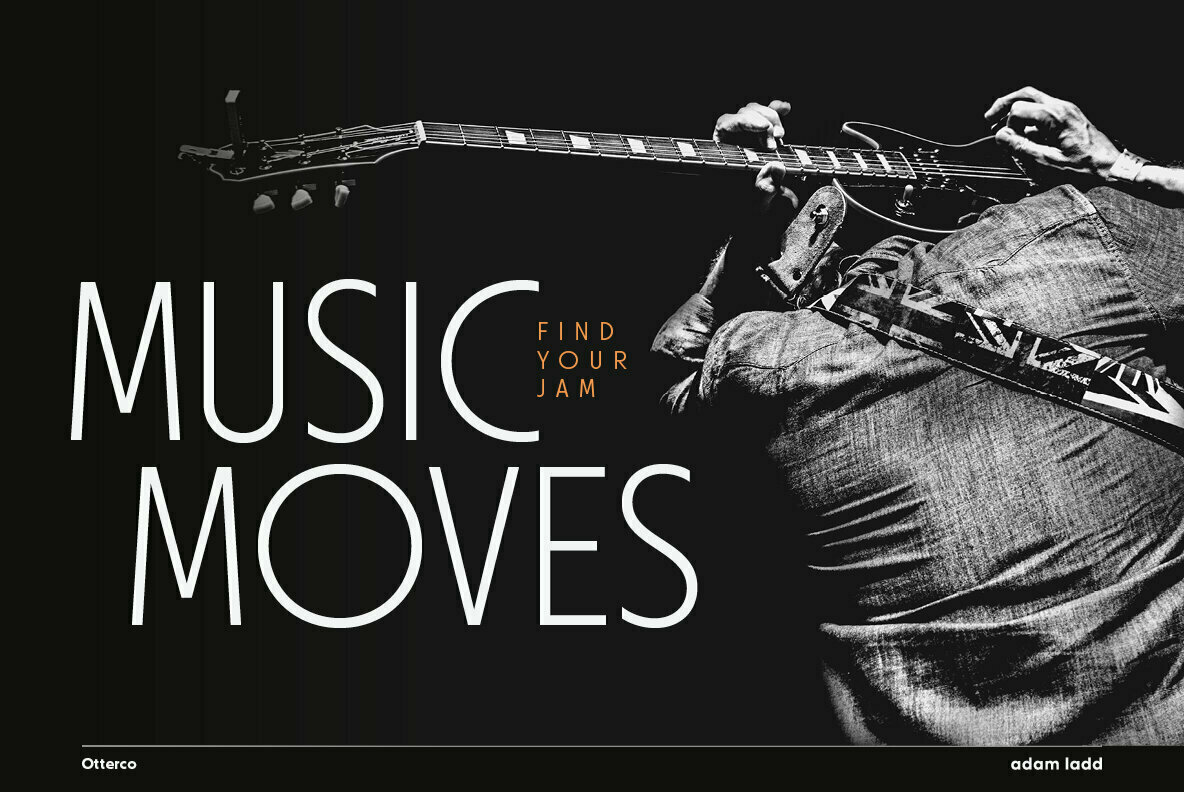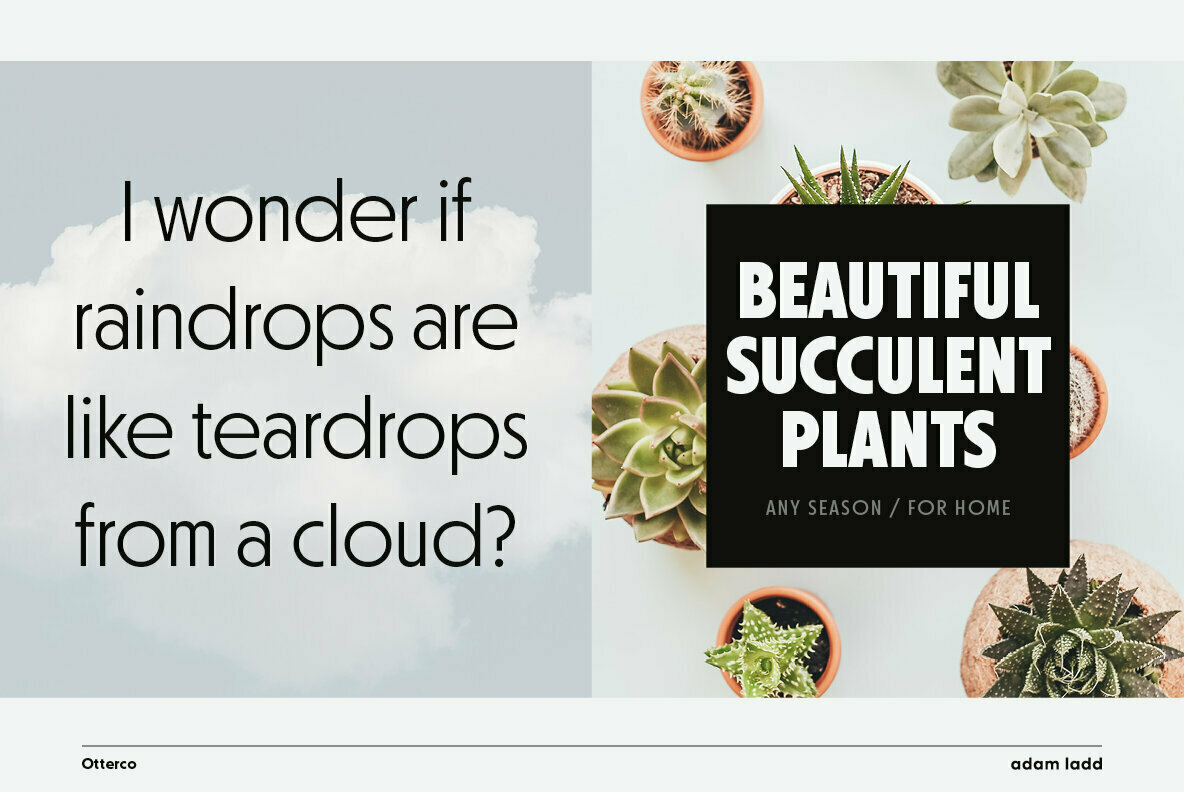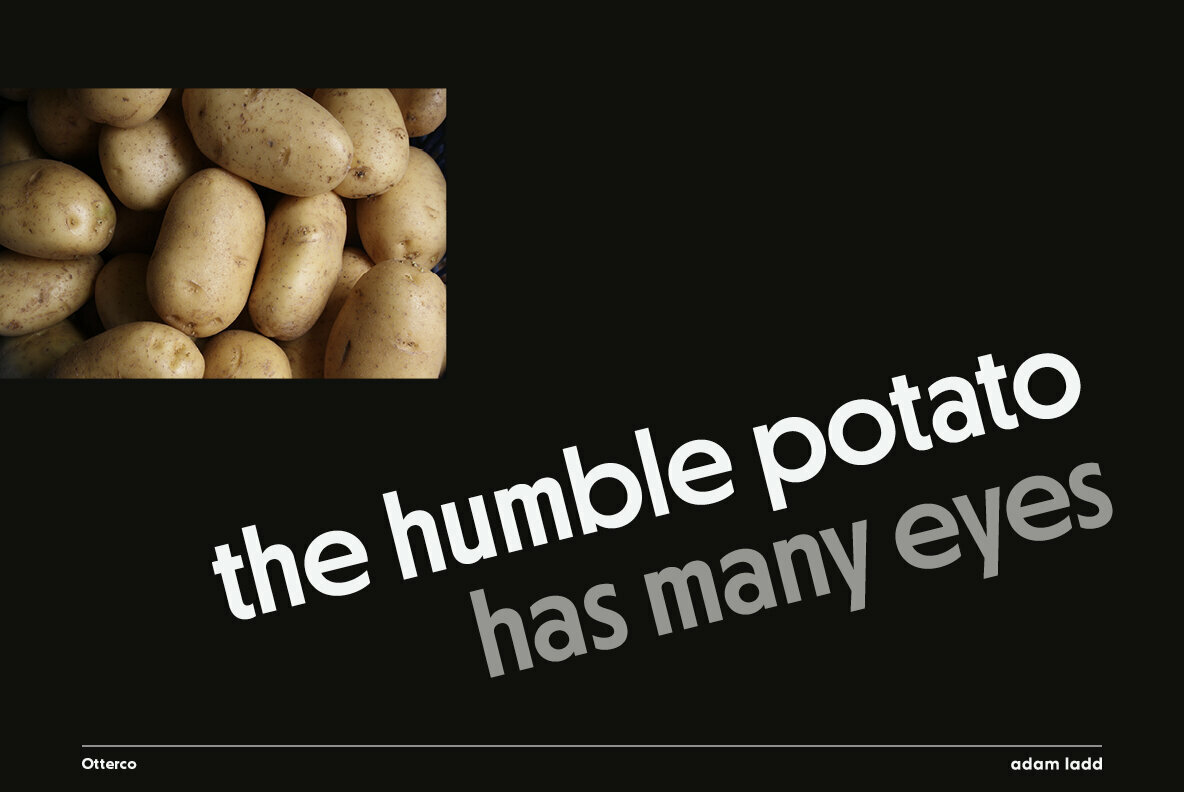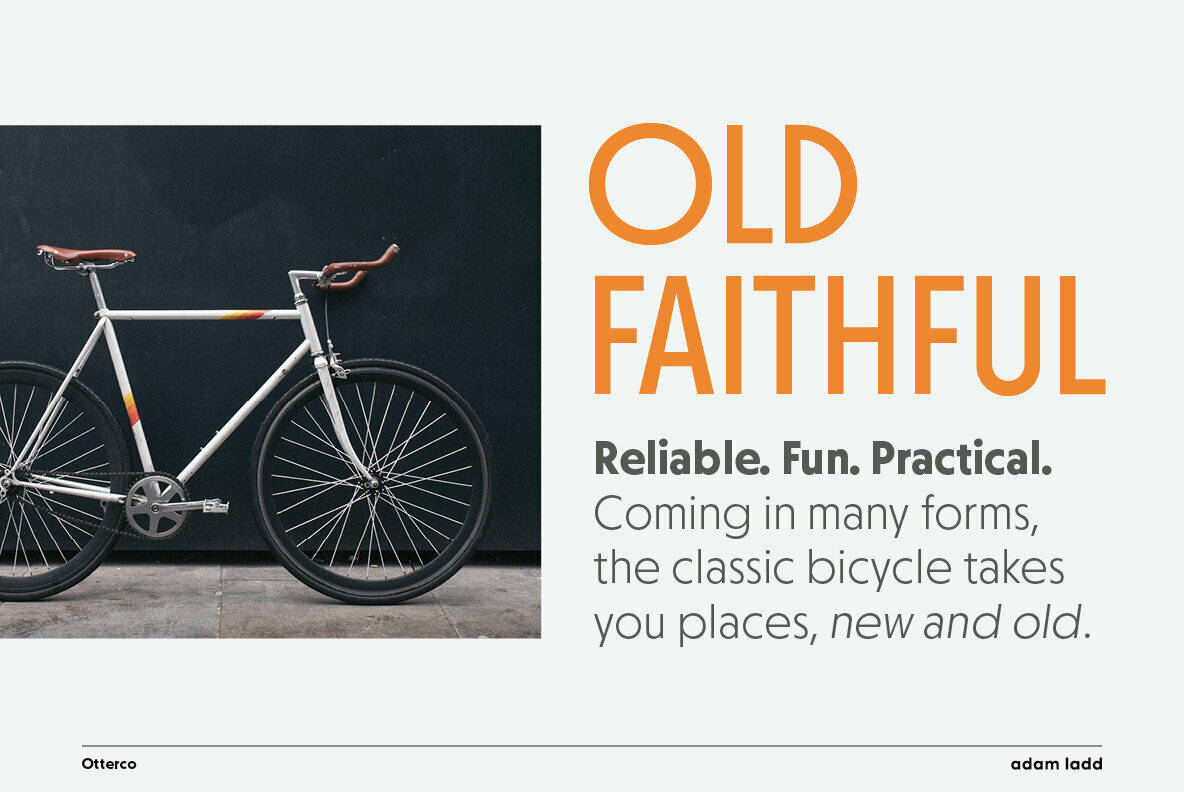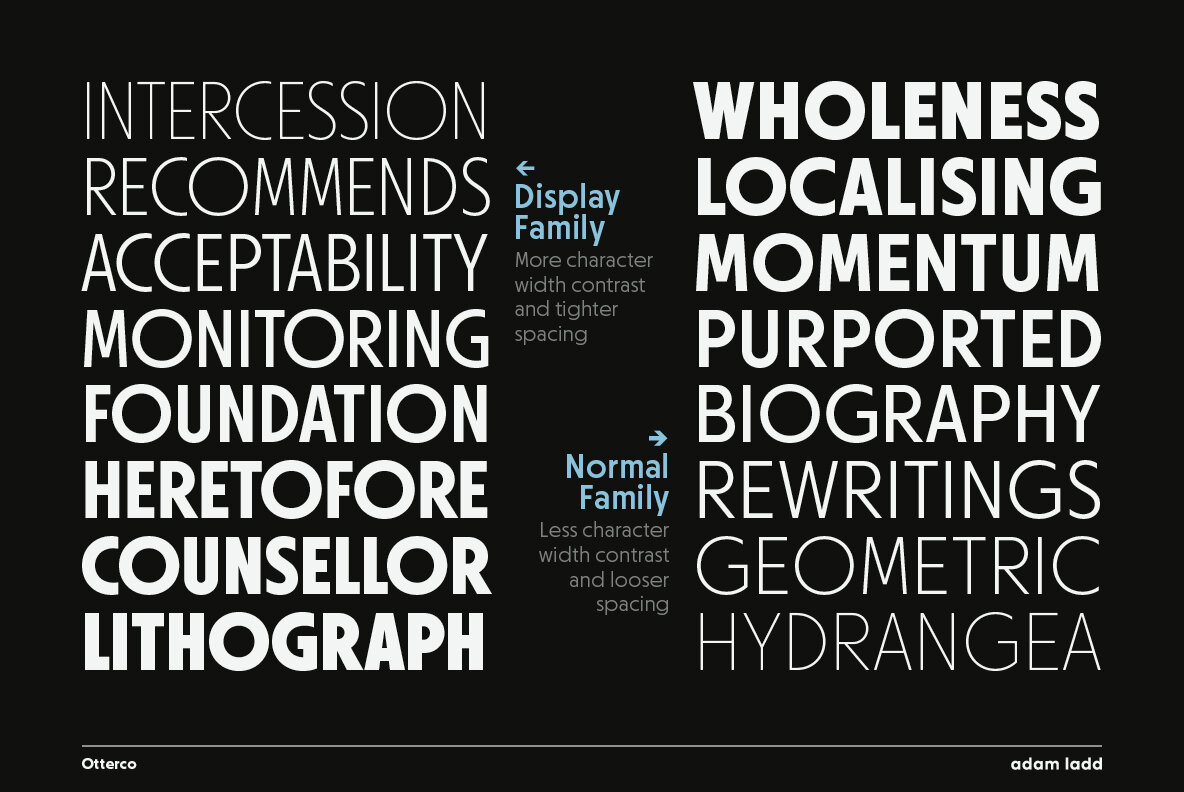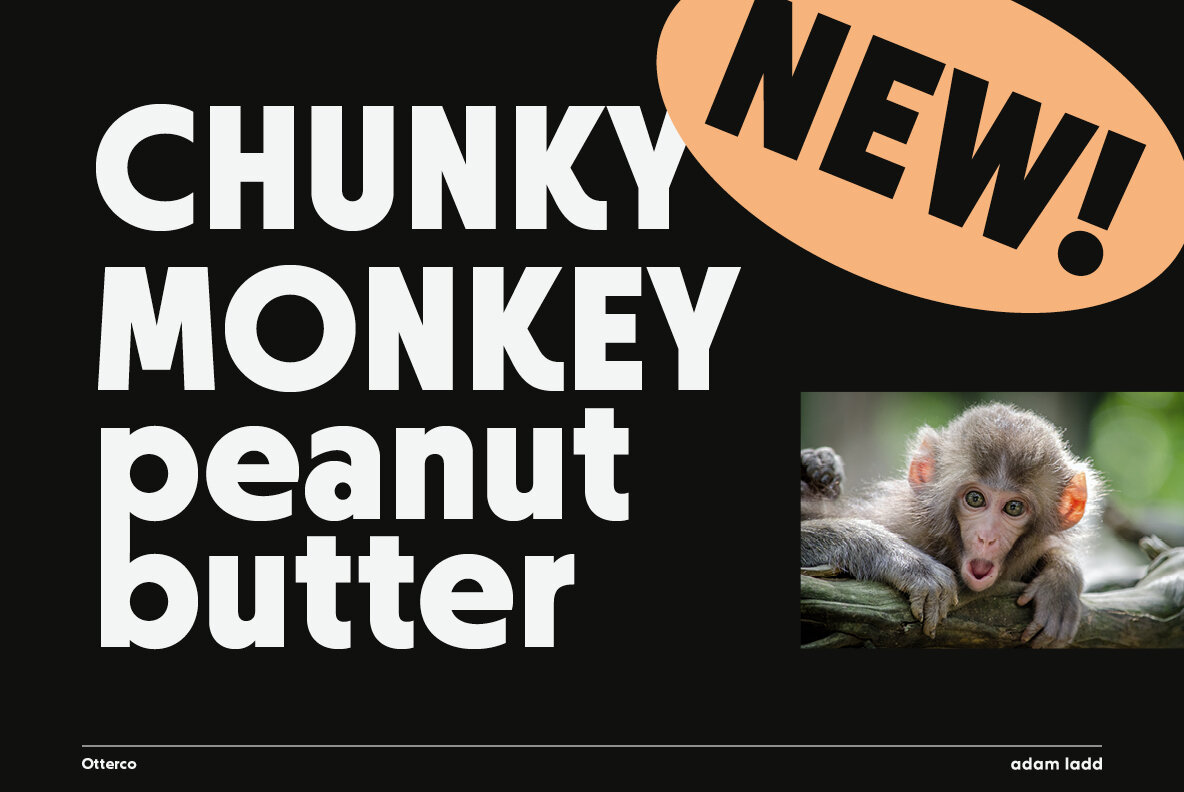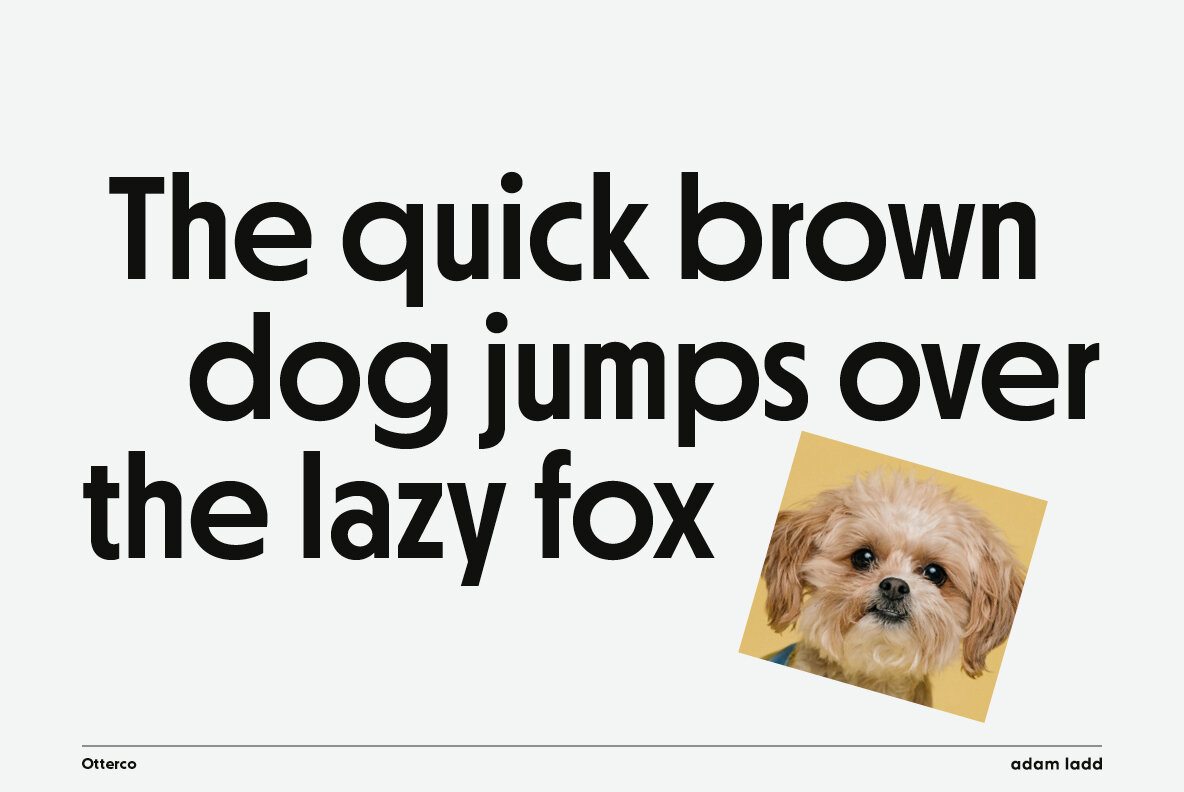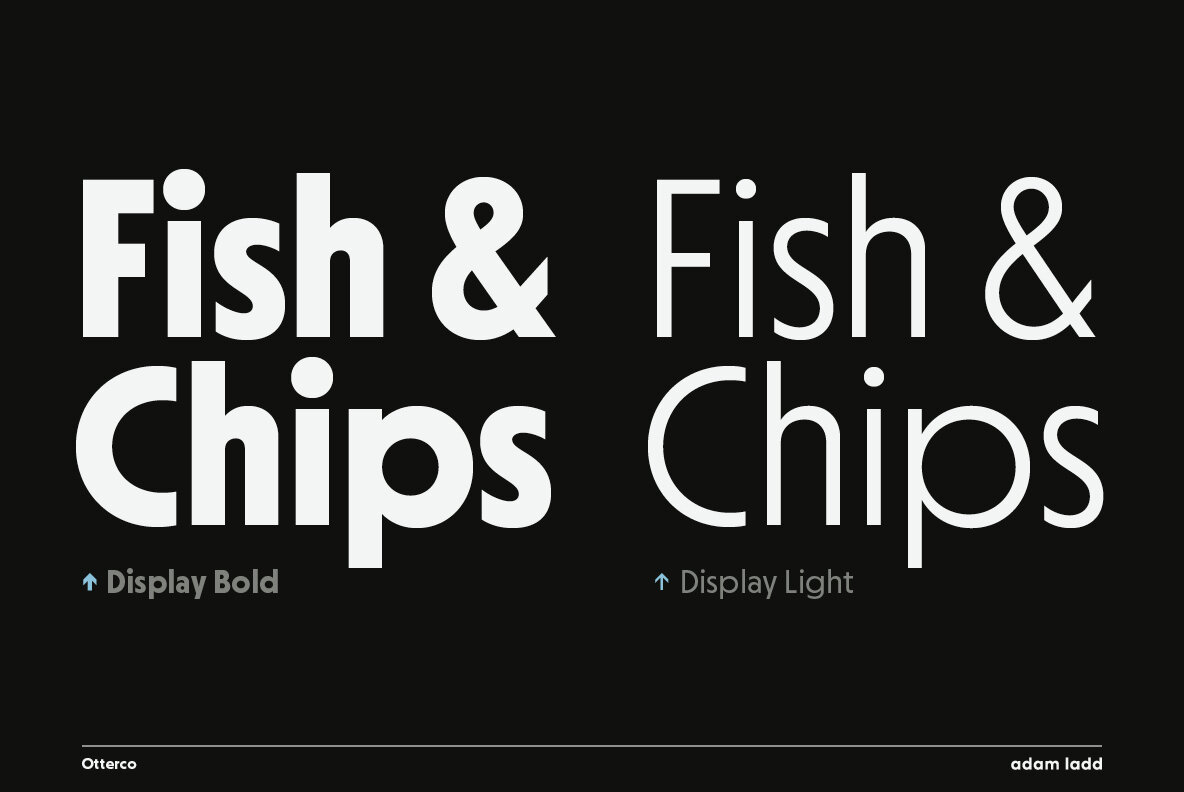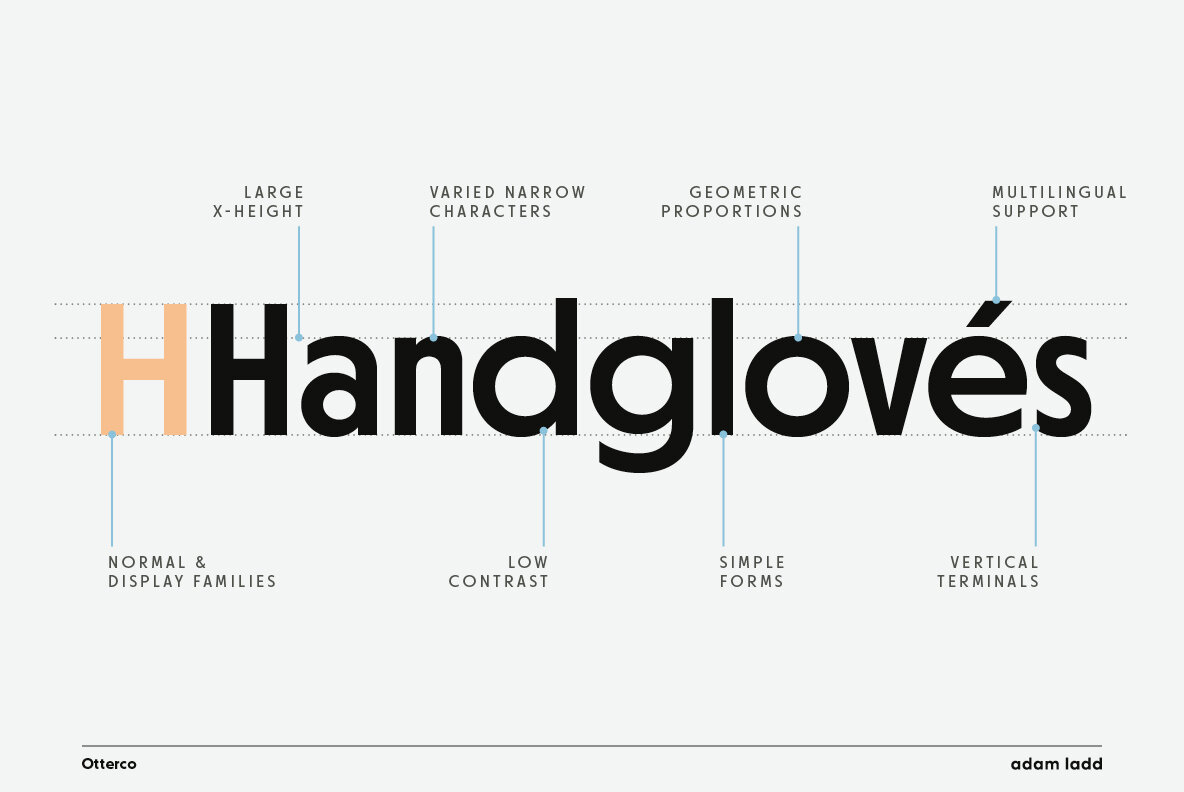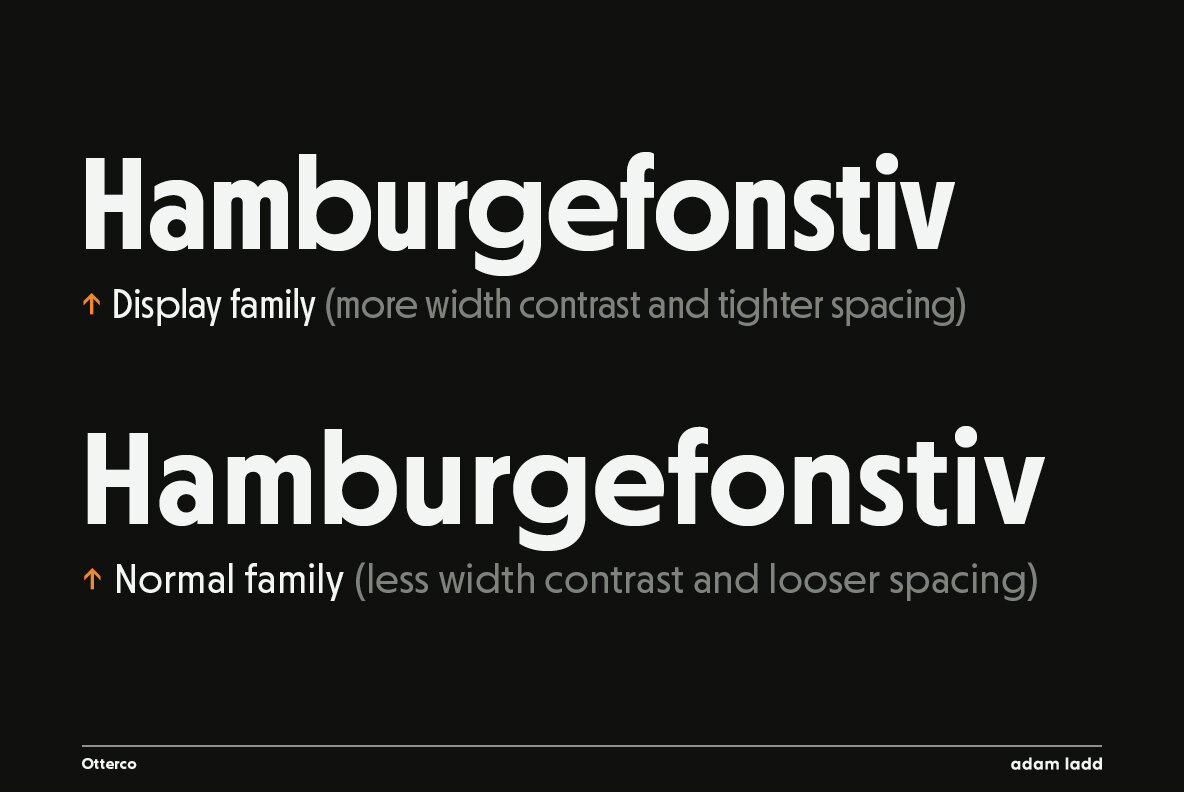
Otterco Font
Otterco is a geometric sans serif font family with varied round and narrow characters. Blending a touch of retro and modern qualities, this typeface is clean and neutral but not boring. It’s professional yet unique and fun. The contrast in character widths creates a distinct visual rhythm and the vertical cut terminals keep it consistent, strong, and sharp looking. Constructed with a large x-height and low stroke contrast, it can fit a variety of applications.
Coming in both Normal and Display families, the fonts can be used for even more settings and tone of voice. The Normal design has a little less width contrast between characters and looser spacing—good for both small and large text. While the Display design has more character width contrast and tighter spacing—good for larger, attention-getting text.
With 32 total fonts in thin through extra bold weights (plus italics), Otterco is well suited as both a versatile text and display font for branding, advertising, packaging, headlines, magazines, websites, logo designs, and more.
Otterco’s features include:
• Normal and Display families (32 total fonts)
• Stylistic alternates (K, M, R, a, k, &)
• Case-sensitive punctuation for All Caps
• Arrow icons
• Fractions, numerators, denominators
• Superscript, subscript
Having almost 600 glyphs, this font has extensive multilingual Latin language support (100+ languages) for Western, Central, and South Eastern European.